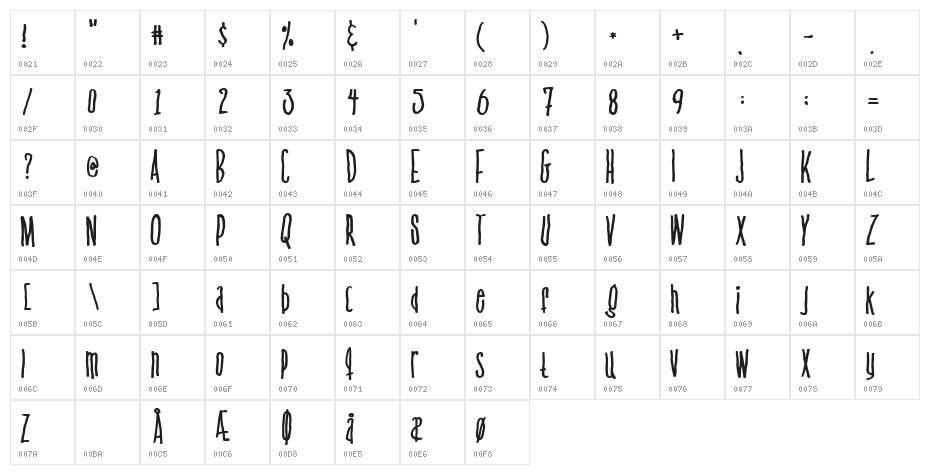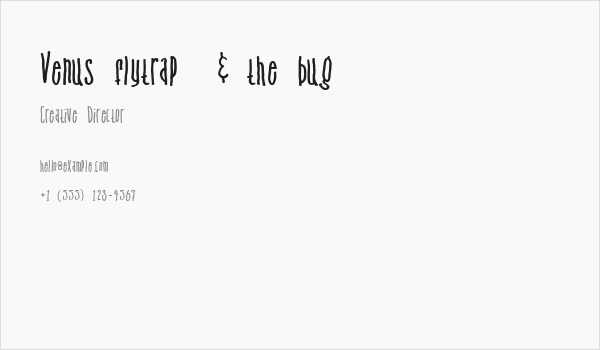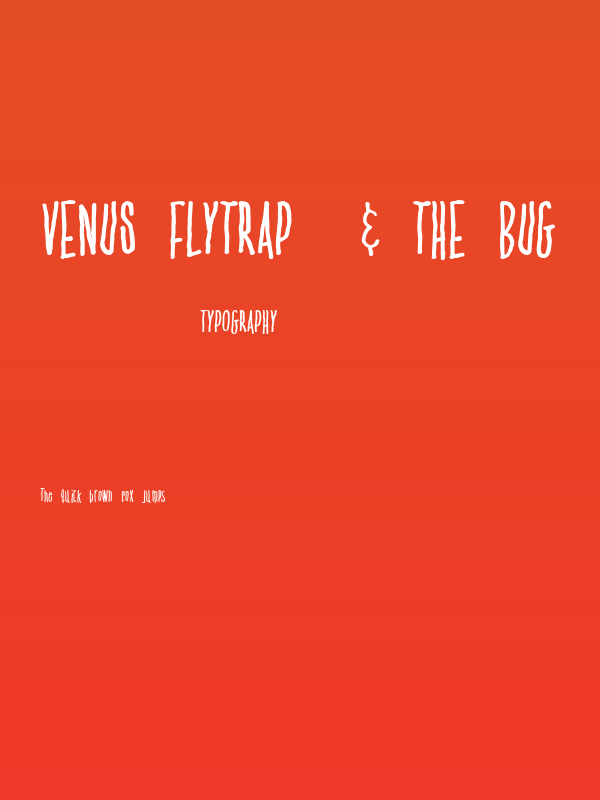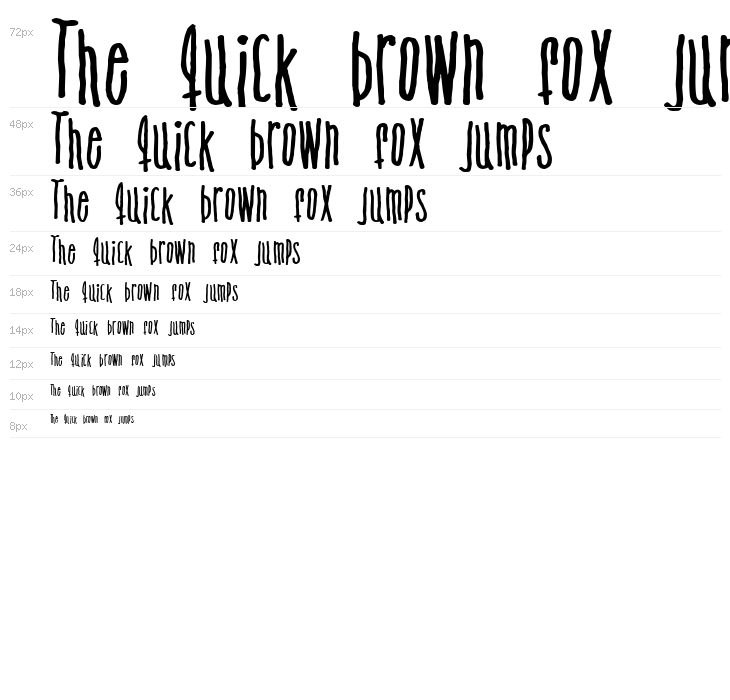
Venus flytrap & the bug Font
Venus flytrap & the bug Description
This font features a playful and quirky design with uneven, hand-drawn strokes that give it a lively and organic feel. The letters are tall and narrow, with a slightly irregular baseline that adds to its whimsical character. The uppercase and lowercase letters maintain a consistent style, while the numbers and special characters complement the overall aesthetic. The font's unique personality makes it stand out, making it ideal for creative and artistic projects.
| Proposed Projects | This font is perfect for children's books, creative posters, artistic branding, and playful invitations. |